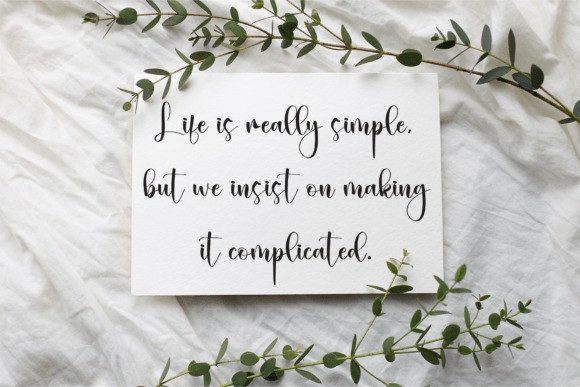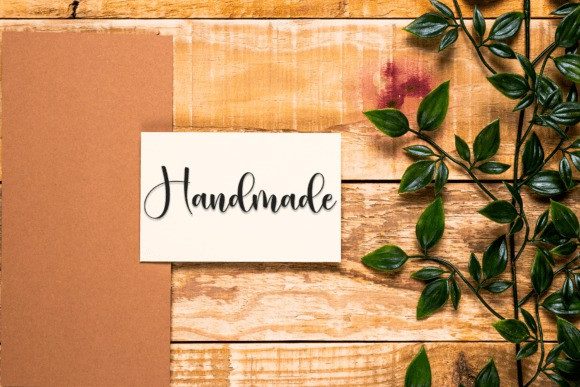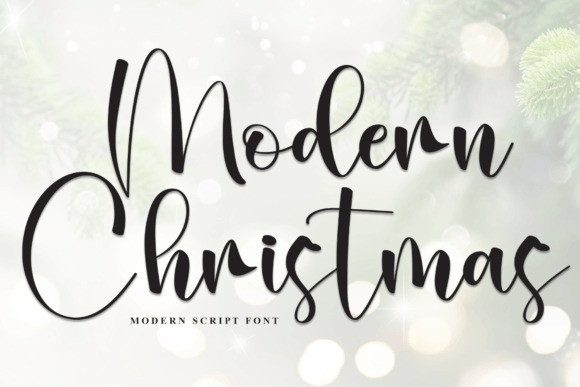
Modern Christmas Script Font is a playful and stylish script font with smooth, flowing letters. It feels cheerful and sweet, perfect for holiday cards, party invites, or fun designs. The letters connect beautifully, giving it a handwritten, festive look.